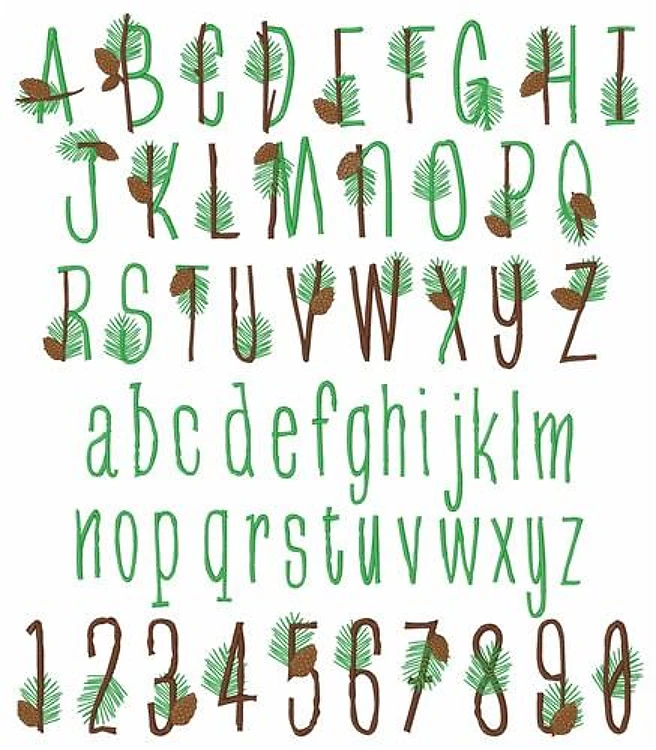
Concord Collections is happy to present Pine F Embrilliance machine embroidery font which has Decorative machine embroidery font styled with green outlines and pine graphics, perfect for holiday-themed projects on table runners or pillows. Available in BX font and Embrilliance formats. included. If you would like to view more embroidery fonts and alphabets please search our embroidery fonts page.